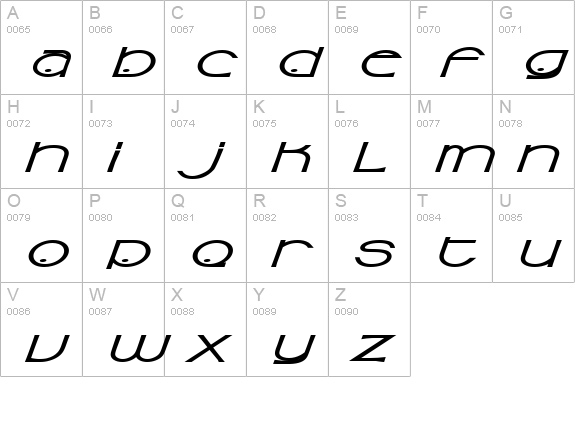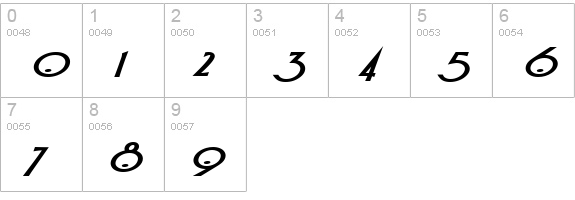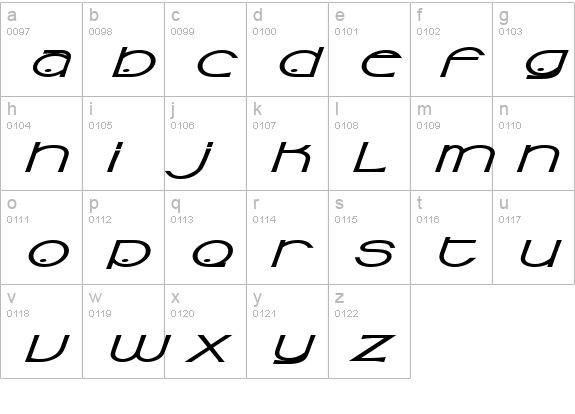
Sonic Superpowers Font Details
Introducing Sonic Superpowers Font, a captivating typeface that embodies the essence of speed, energy, and adventure. This extraordinary font is designed to bring a dynamic and electrifying feel to any project it is used in. With its sleek and modern design, Sonic Superpowers Font is perfect for capturing attention and making a lasting impression. What sets Sonic Superpowers Font apart is its versatility. Whether you're working on a logo, poster, website, or any other creative endeavor, this font will add a touch of excitement and power to your design. Its bold letterforms and unique curves create a sense of movement, as if each character is ready to burst into action. But what makes Sonic Superpowers Font truly exceptional is that it is free. That's right, this incredible font can be freely downloaded from FontsMarket.com. We believe that creativity should be accessible to all, and by offering Sonic Superpowers Font for free, we hope to inspire and empower designers from all walks of life. So why wait? Download Sonic Superpowers Font today and unleash your design's full potential. Whether you're aiming to create a high-energy logo, a thrilling poster, or an electrifying website, this font will give your project the boost it needs. Don't miss out on this opportunity to add a touch of superpower to your designs. Get Sonic Superpowers Font now, free of charge, at FontsMarket.com.